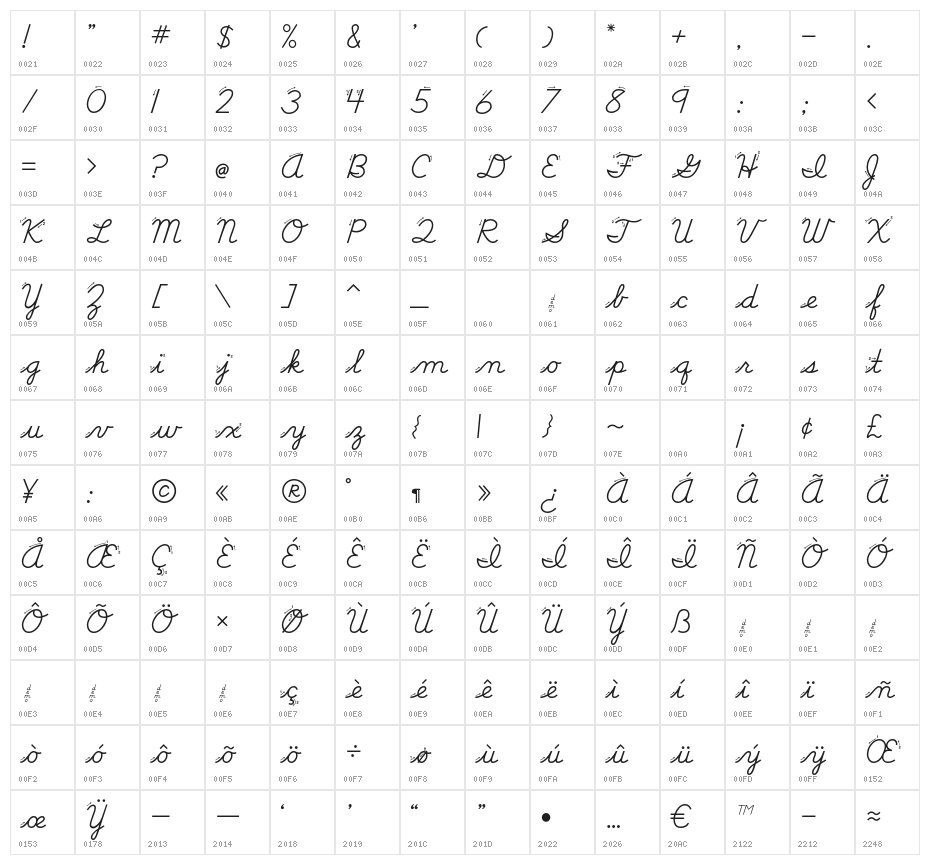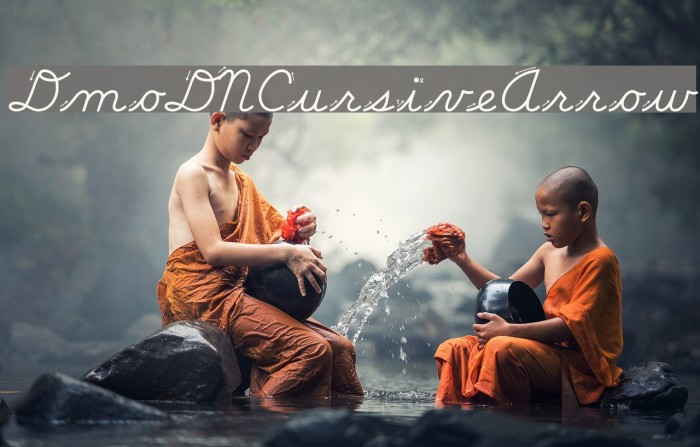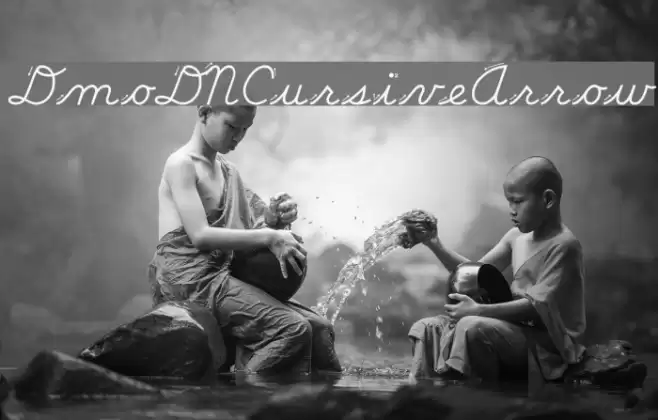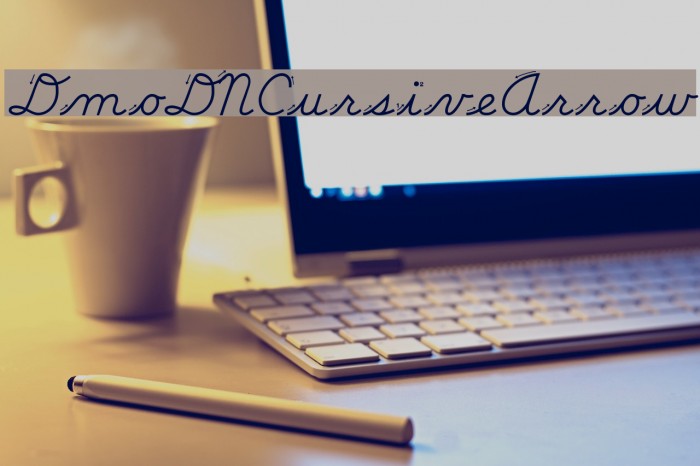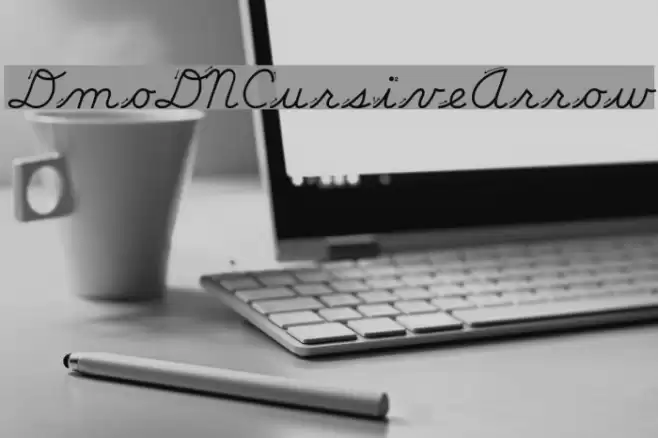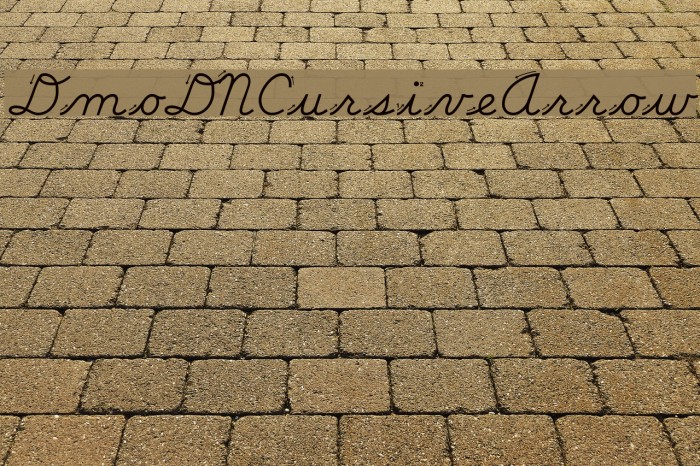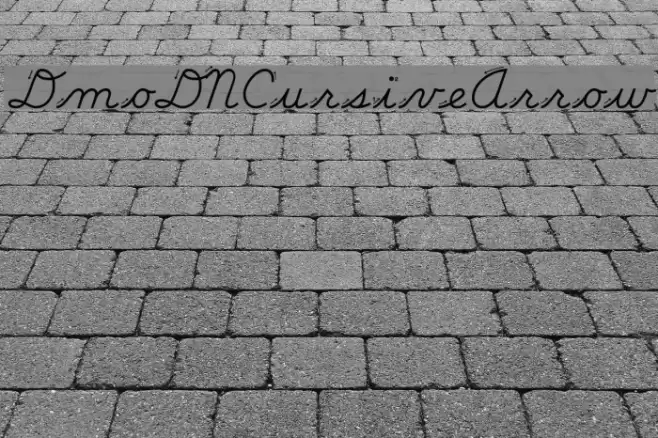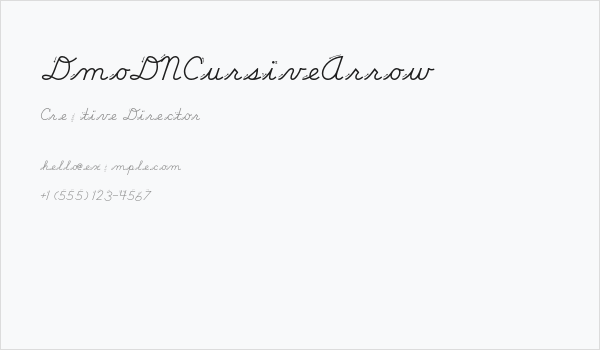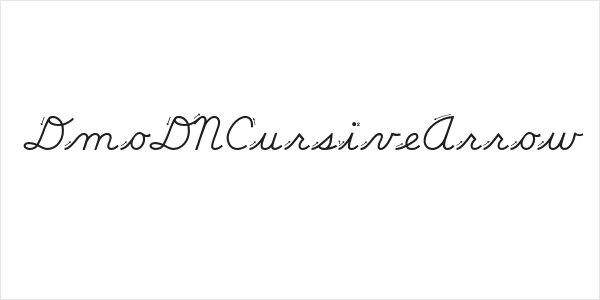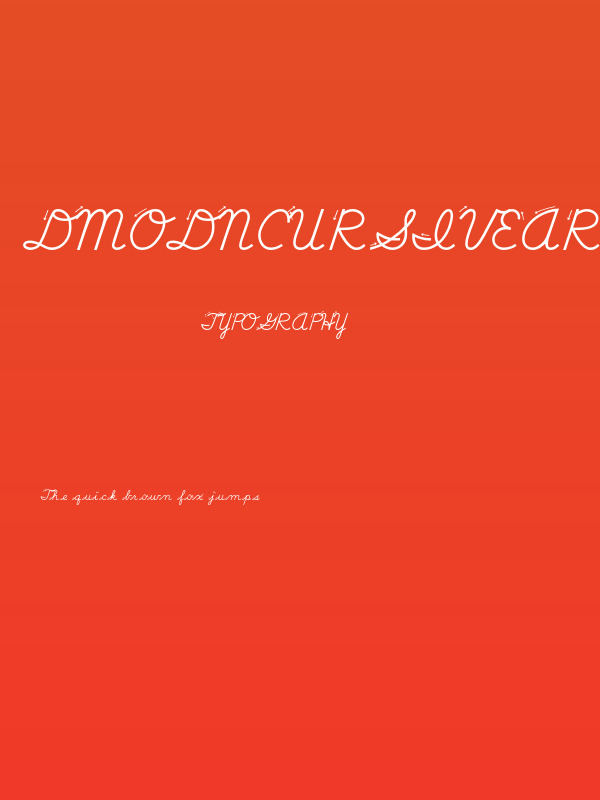
DmoDNCursiveArrow Font
DmoDNCursiveArrow Description
This font features a cursive style with elegant, flowing lines that mimic the fluidity of handwriting. Each character is connected with smooth, sweeping strokes, giving it a sophisticated and graceful appearance. The uppercase letters are slightly more ornate, with subtle flourishes that enhance their visual appeal. The lowercase letters maintain a consistent flow, ensuring readability while preserving the overall aesthetic. Numbers and special characters are designed to complement the alphabet, maintaining the same cursive style. This font is ideal for projects that require a touch of elegance and personal flair.
| Use Case | Headlines, Invitations, Logos |
| Proposed Projects | Ideal for wedding invitations, personal branding, elegant logos, and decorative headings. |